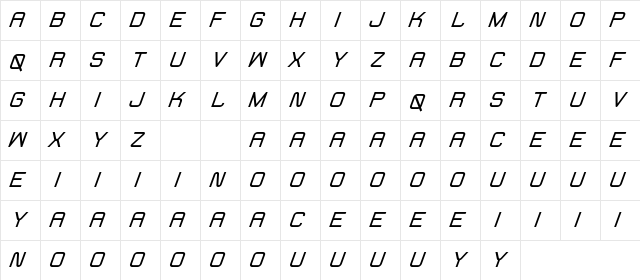
Fearcheer Demo Italic
Design Context for Fearcheer Demo Typeface
Fearcheer Demo is a composed and adaptable typeface that performs quietly and consistently across a wide range of design contexts. The dynamic lean of this cut emphasises speed and emphasis in any layout.